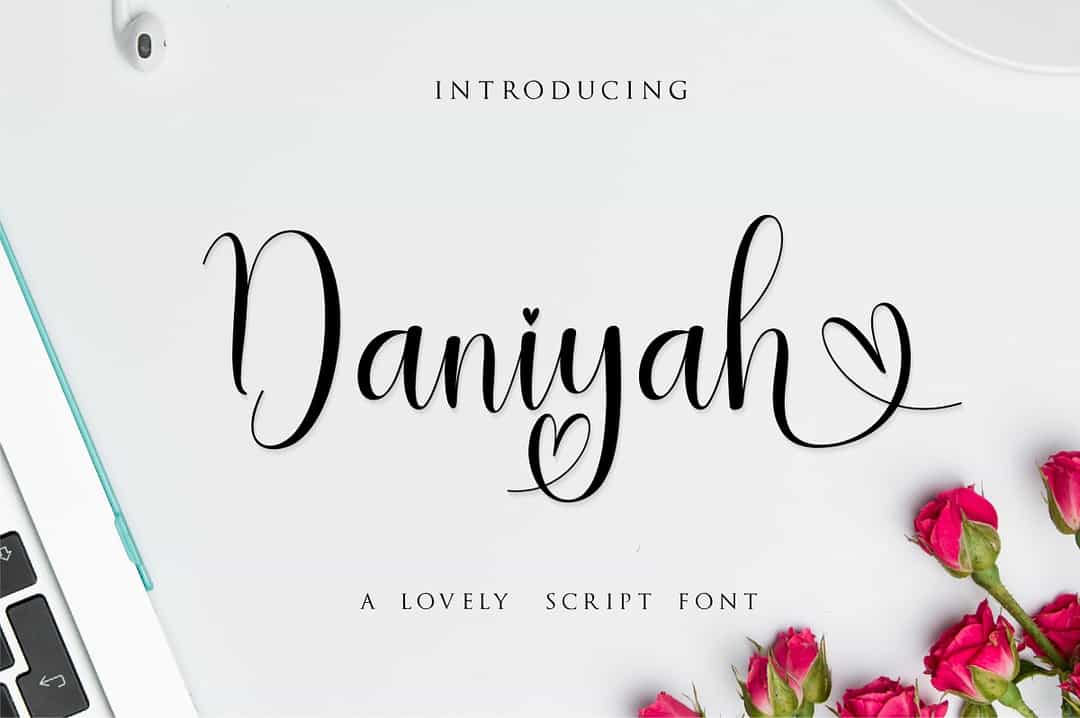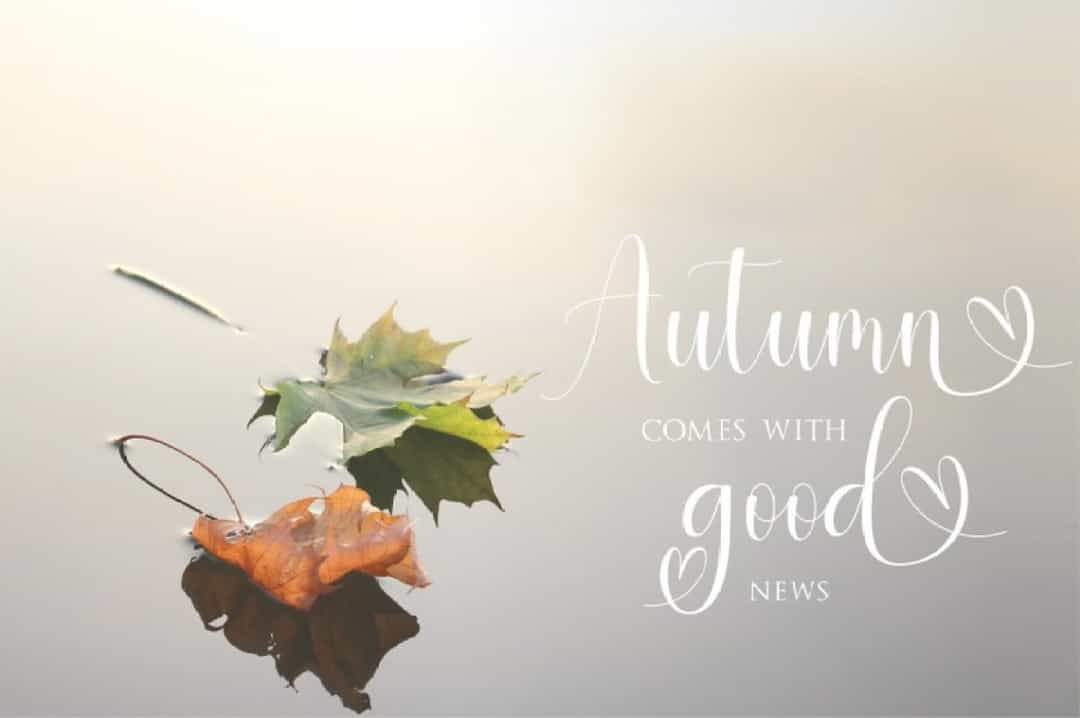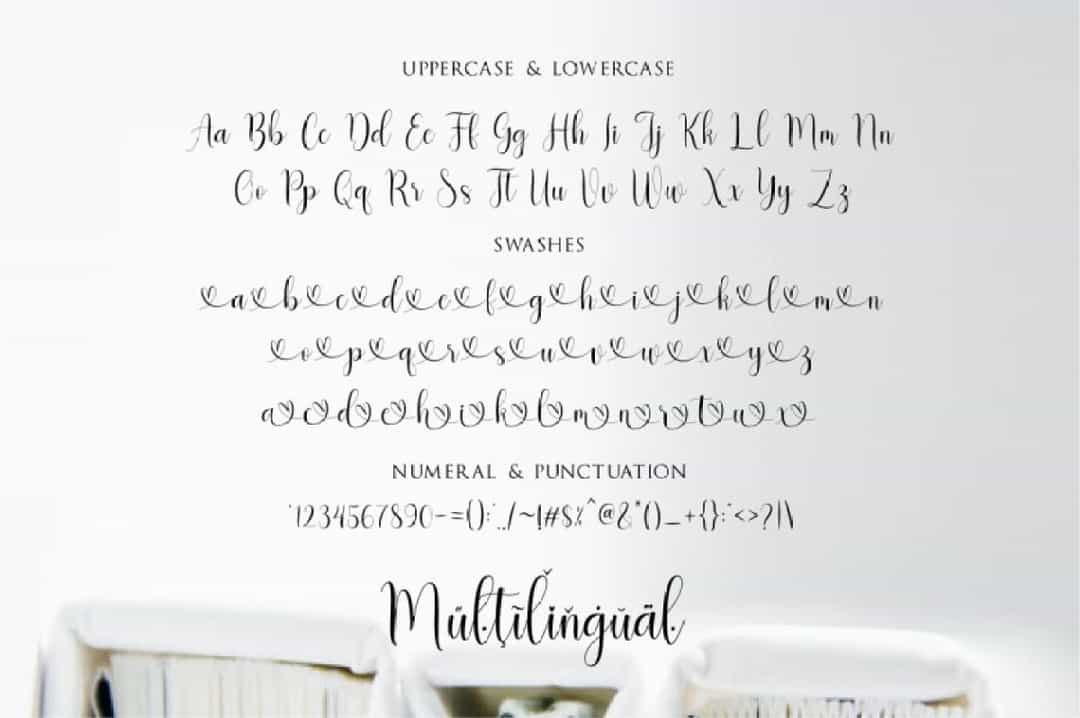
Daniyah Font is an elegant, beautiful and extremely sweet Calligraphy font encoded with PUA code to allow it to access all swashes and glyphs with ease! Featuring different baselines with smooth lines, lovely symbols and stunning alternates – you will love its versatility and use it to craft amazing designs!